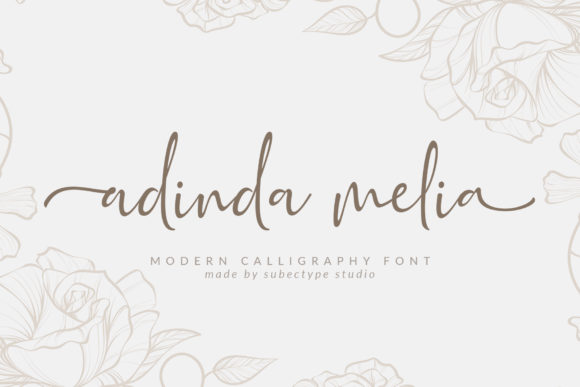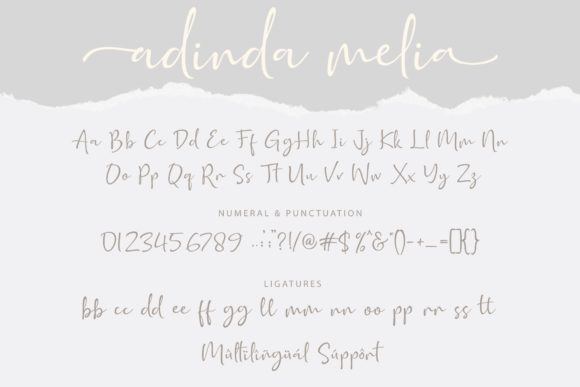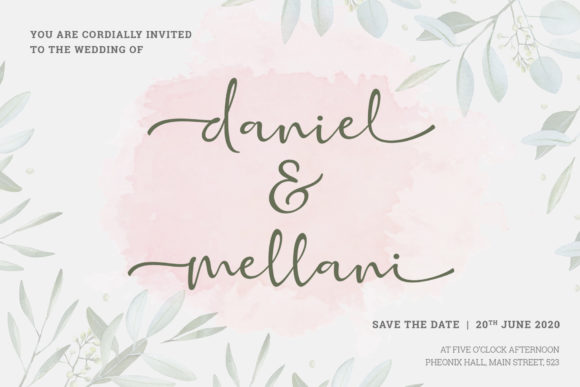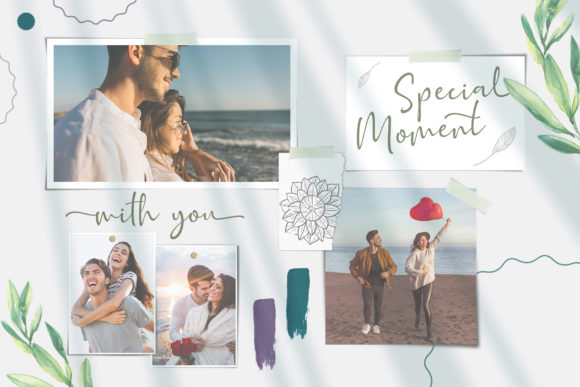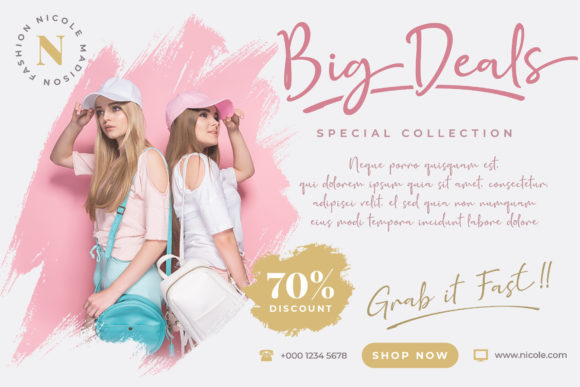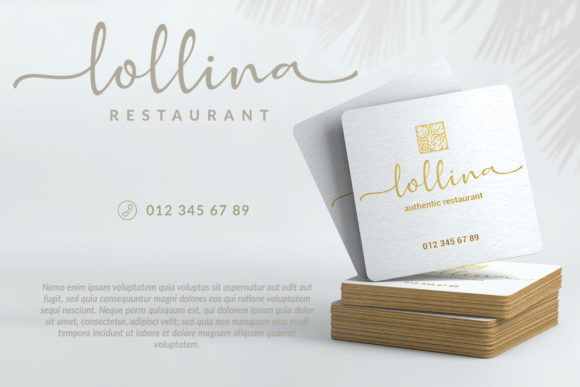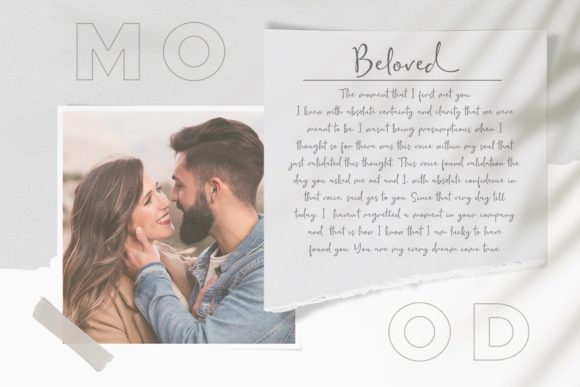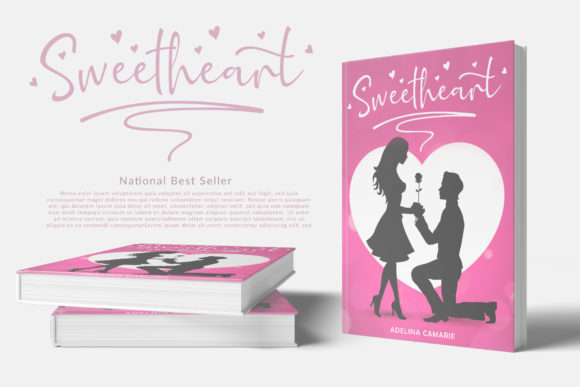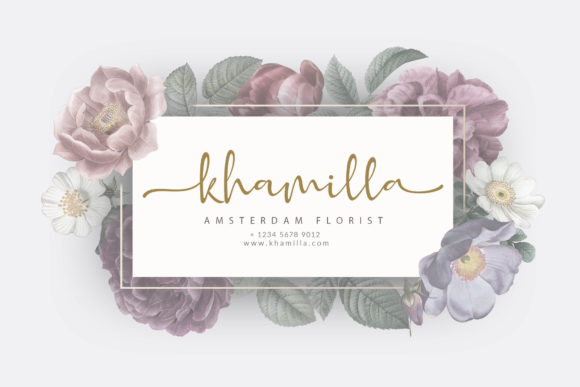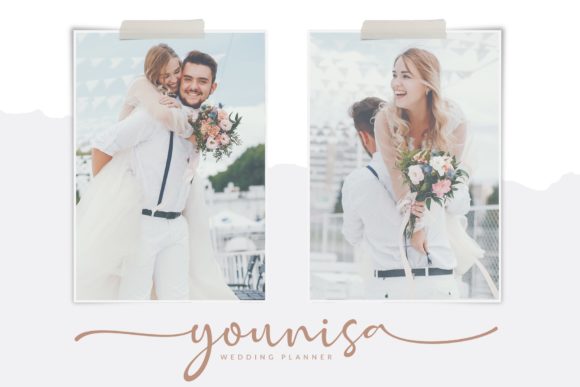
Adinda Melia Font
Adinda Melia is a lovely modern calligraphy font with with a touch of natural handwriting style. Get inspired by its charming character!